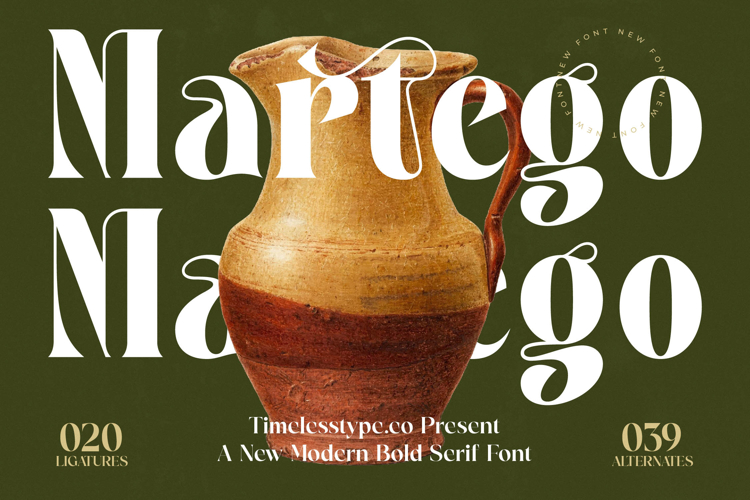
Martego - Modern Bold Serif Font
Unlock unparalleled visual impact with Font Martego - Modern Bold Serif Font Serif Display, a striking typeface designed to command attention. This modern bold serif exudes undeniable sophistication and timeless elegance, blending classic proportions with contemporary flair. Its robust yet refined aesthetic instantly elevates any design to a premium standard.
Experience the exquisite craftsmanship embedded in every character of Font Martego - Modern Bold Serif Font Serif Display. Featuring strong, high-contrast strokes and impeccably balanced serifs, this display font offers exceptional readability alongside a highly decorative presence. Its thoughtful design ensures a harmonious flow and a distinct personality, proving incredibly versatile for discerning designers.
Elevate your brand with the distinguished charm of Font Martego - Modern Bold Serif Font Serif Display, perfect for luxury branding, high-end editorial design, premium packaging, and captivating logo creation. Its authoritative presence is ideal for headlines, titles, and making a powerful, lasting impression. With its extensive multilingual support, Font Martego - Modern Bold Serif Font Serif Display adapts seamlessly across global markets, making it incredibly versatile for international projects.
Choose Font Martego - Modern Bold Serif Font Serif Display to infuse your work with prestige and originality. This font is a powerful tool to create memorable impressions and establish a strong visual identity. Invest in this exceptional serif to ensure your designs consistently communicate professionalism and a sophisticated aesthetic.